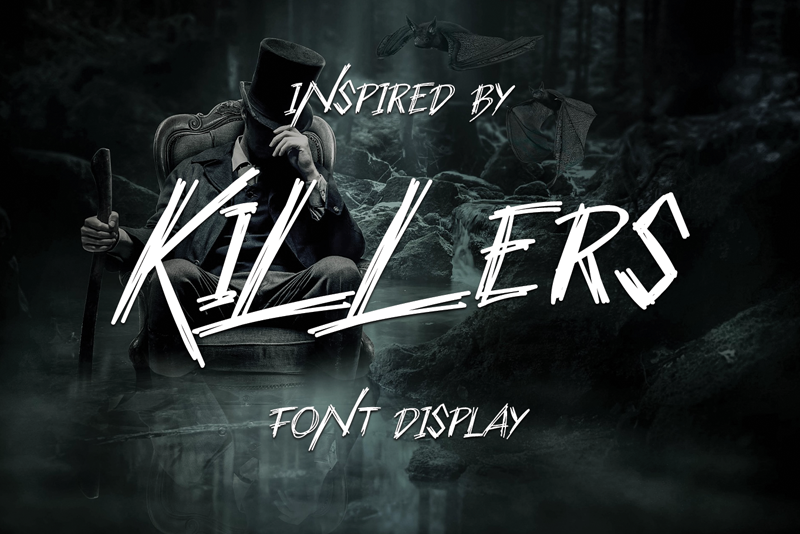
Preview and download Killers Font. Created by Erik Luluk in Fancy Horror styles with Free for personal use license.
Killers is a bold and cool-looking display font. Simple but with a strong visual effect, this font will instantly make your creation more appealing than any others! Attention : Killers handwriting Font is prohibited to use this font for commercial purposes or for profit without the permission of the author/admin, without being known to use this font without permission, will be subject to sanctions 5x the specified price. This font is used only for demos (Demo license) If you want to use this font for commercial use please contact email: erikluluk0@gmail.com or click the link below: https://www.creativefabrica.com/product/killers/ref/745146/ If you want to see more other fonts, please click:https://www.creativefabrica.com/designer/erik-studio/ref/745146/ Any donations are very appreciated. Paypal account for donation: https://paypal.me/eriksupriyant thanks. |